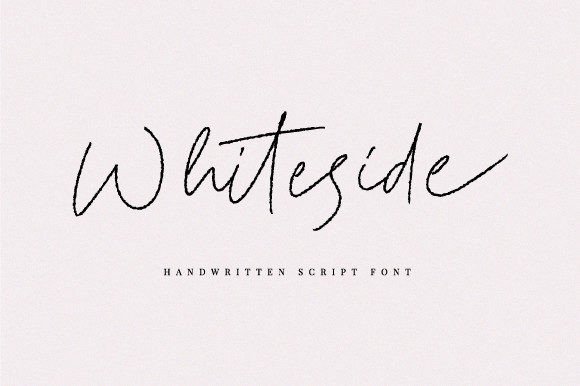
Unleash the Beauty of Whiteside: Your Gateway to Captivating Visuals
In the realm of captivating design, where words dance and images come alive, the Whiteside font takes center stage. This exquisite handwritten script font is a masterpiece crafted by Prioritype, designed to transport your creative visions into a tangible reality. Experience the allure of a font that speaks volumes, transforming ordinary designs into awe-inspiring masterpieces.
With Whiteside, your design projects will transcend the mundane and enter the realm of the extraordinary. Picture magazine titles that dance off the page, each letter a work of art. Logos that leave an indelible mark, their intricate details whispering tales of elegance and sophistication. Quotes that resonate like whispers of wisdom, their curves and flourishes adding layers of depth and meaning.
But Whiteside's allure extends beyond mere aesthetics. Its versatility knows no bounds, adapting effortlessly to a symphony of creative endeavors. Whether you're a seasoned designer or just starting your creative journey, Whiteside will be your steadfast companion, elevating your projects with its timeless charm.
And to further enhance your typographic adventures, Whiteside comes with an arsenal of awe-inspiring textures. These carefully crafted textures add a depth and dimension to your designs, creating visual experiences that captivate and enthrall. Enrich your branding designs with an air of sophistication, let your logos shimmer with an ethereal glow, and add a touch of magic to your quotes.